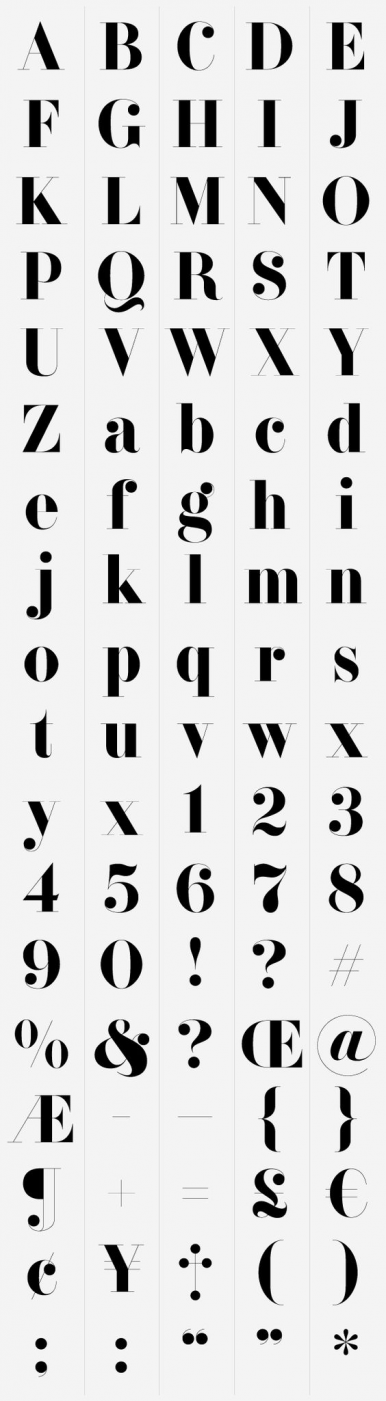
Trying to identify this font with ball terminals
I have a client wanting this font on their invitation but - whilst I can get a close match, I can't get a font with the 'ball' serifs... Can anyone help ?  It will be used for print.